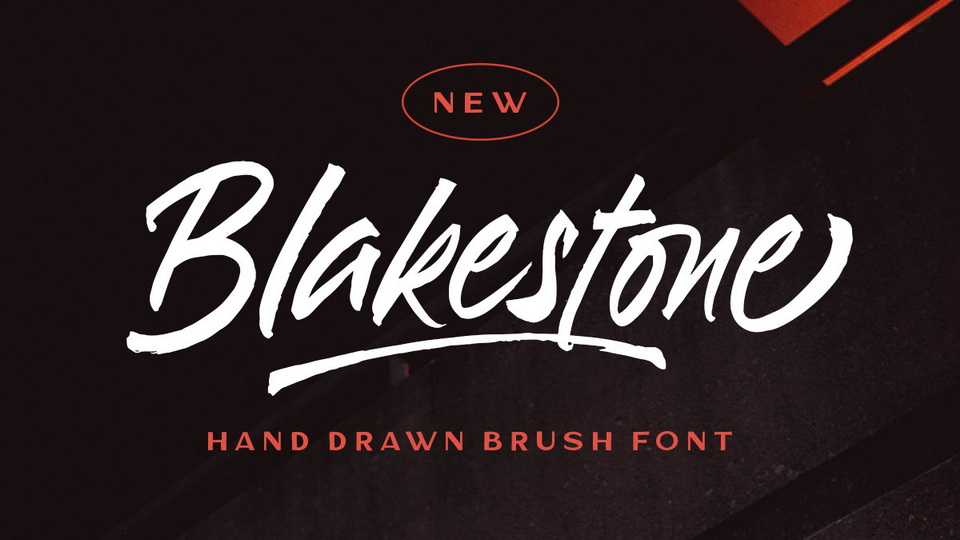
Download Blakestone font, a fast and dynamic handwritten brush typeface. Blakestone will add an incredibly striking touch to your designs, social media, posters and prints.